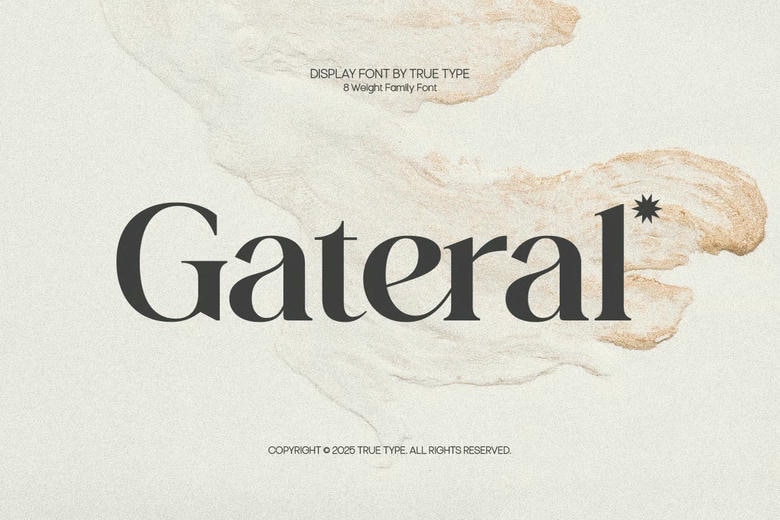
Gateral Font
Gateral is a serif font that can be characterized by clarity, balance and gentle elegance. Its character is mild and its clear structure can be usable in a vast variety of applications such as branding, editorial design, branding, and packet design and online assets. Gateral is constructed in a way that it can be read in both big and small text and gives a professional feel but not cold or too formal.
It is a typeface that is assured, but not arrogant, ideal towards digestive design. Superb in editorial design, brand design, books, logo, presentation and social media use where you need typography that feels sophisticated but with none of the associated stiffness. Gateral provides you with adequate ability to produce peaceful, transparent, and well-organized graphic correspondence.
Gateral Serif Font